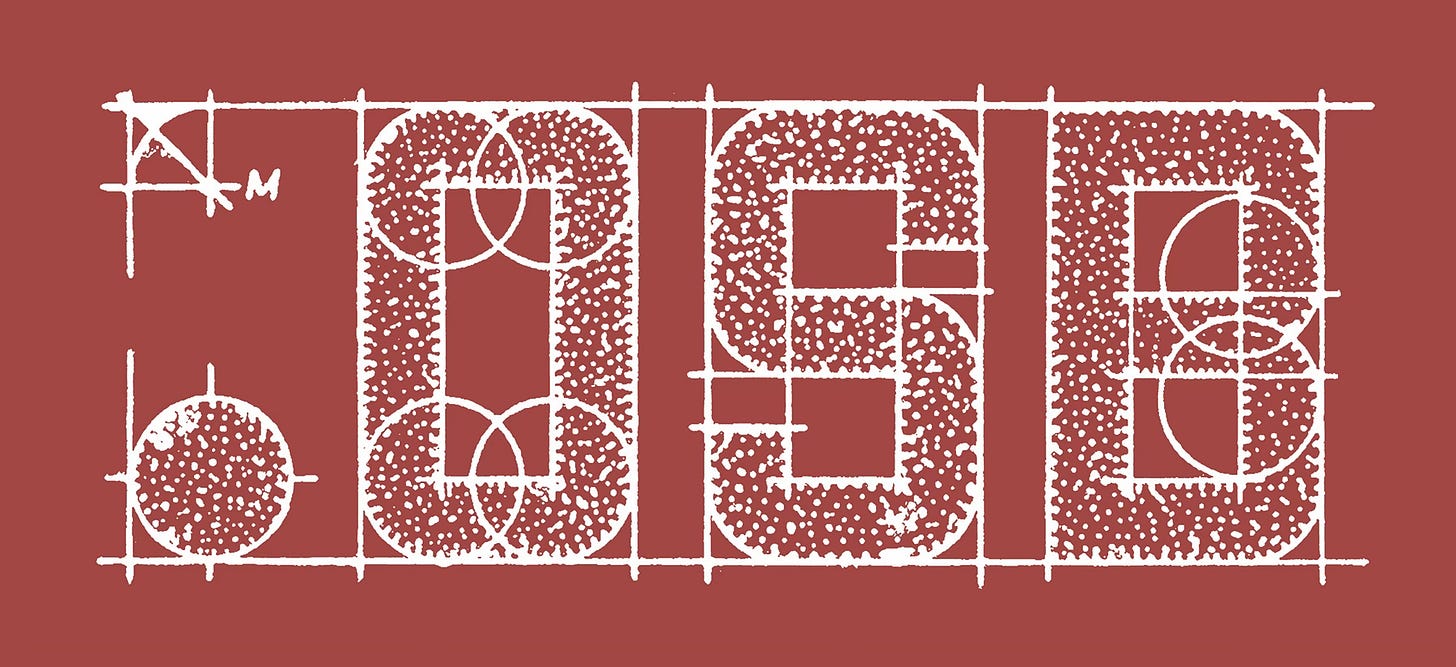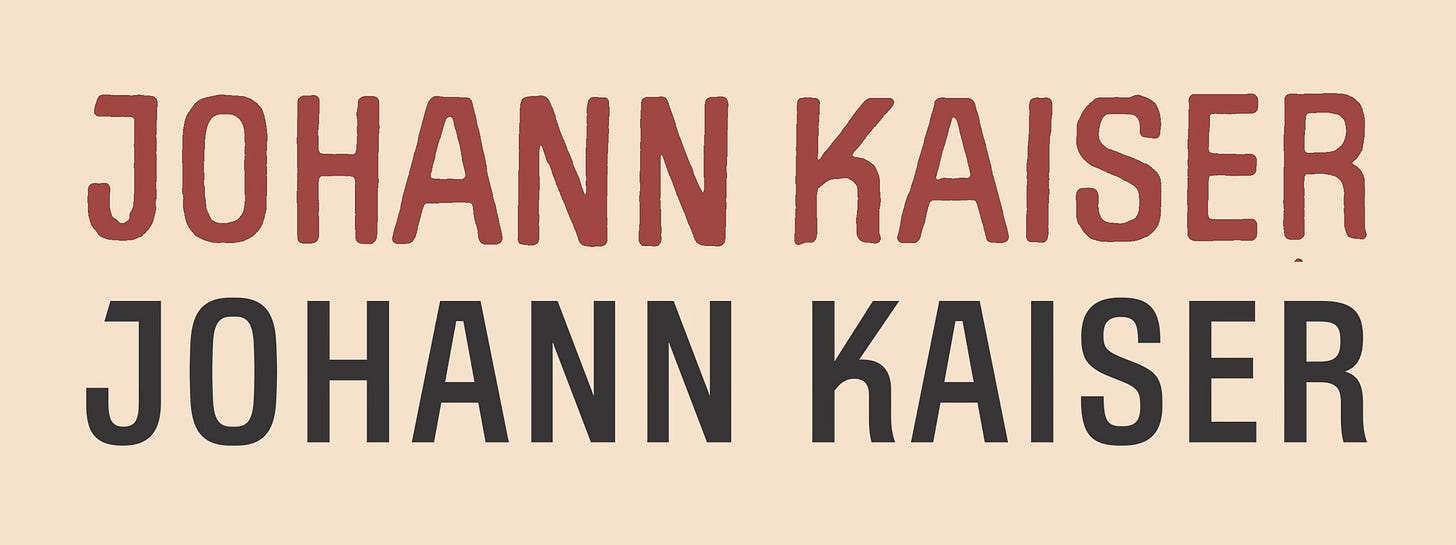
Lettering Off the Grid
The Quirky Charm of German Gaspipe Lettering
My lettering obsessions have led me down some unexpected rabbit holes: romance paperbacks, cabinet cards, and breweriana, to name a few. More recently I became mildly obsessed with rectilinear sans serifs—what commercial letterers call flat-sided gothic or gaspipe style—thanks in large part to an early-twentieth-century German lettering manual, Hohberg Schriften Buch. (Although I missed out on a copy at Katherine Small Gallery, shoutout to the shop’s curator, Michael Russem, for hooking me up with photos!)
The book that triggered my latest German gaspipe lettering obsession
When I first started lettering, I rarely gave unassuming sans serif styles a second glance. But after more than 30 years of practice, subtle design details begin to stand out. I was especially intrigued by the peculiar traits of Hohberg’s Netzgrotesk (“grid grotesque”). Like other German specimens I’d seen, the K has an angled upper arm, but instead of a diagonal leg, the lower right stroke is vertical. Curiously, the A has a short bar at its apex, while the J is topped with a similar horizontal stroke, presumably to increase the volume of the form. Several letters (including the J), also have unusual angled terminals, which I suspect are remnants of pen-written strokes. In some cases, uppercase letters even take on lowercase forms.
Ernst Bentele’s grid diagram for making rectilinear letters with a ruler and compass
Whatever the origin of these idiosyncrasies, I decided to draw my own interpretation. Rather than sticking to the rigid grid of the original reference, I replaced the straight strokes of the O, D, and other rounded letters with gently curved stems to give the geometric forms greater warmth and personality. At the same time, I preserved the quirky characteristics that drew me to the style in the first place.
My interpretation (bottom) of the original Netzgrotesk specimen (top)
Like so many of my niche lettering obsessions, this one will sit patiently in my bag of tricks until the right project comes along.